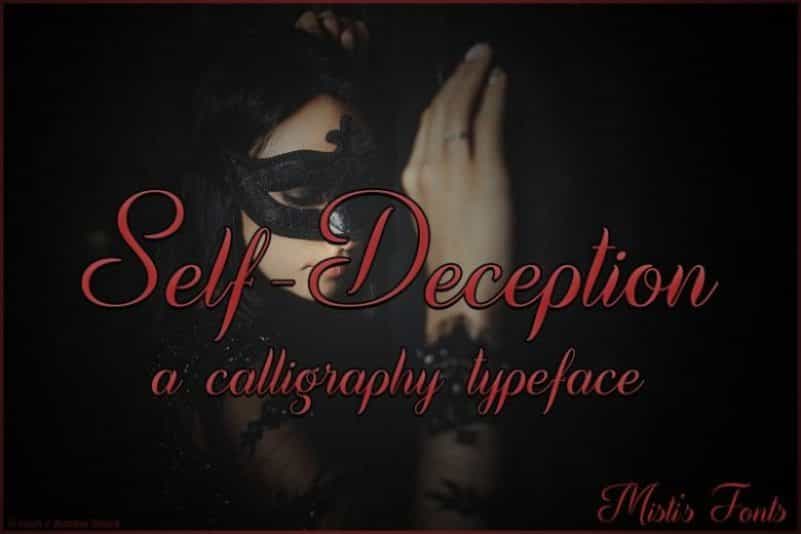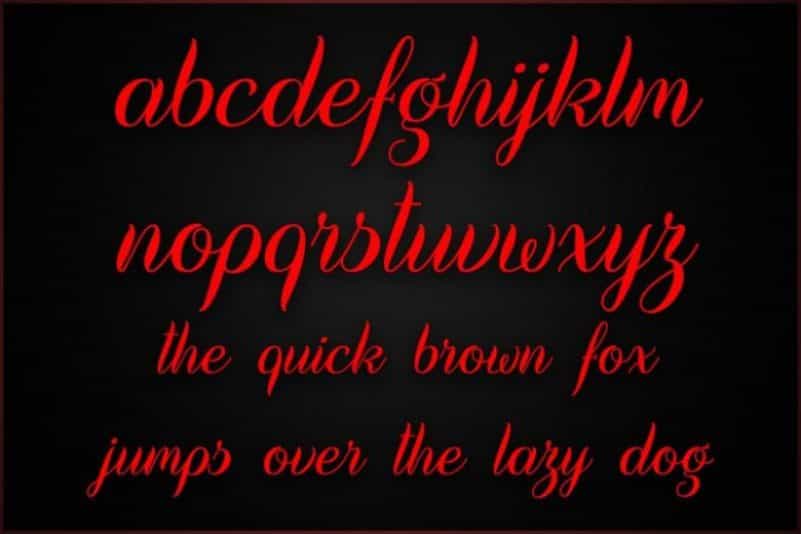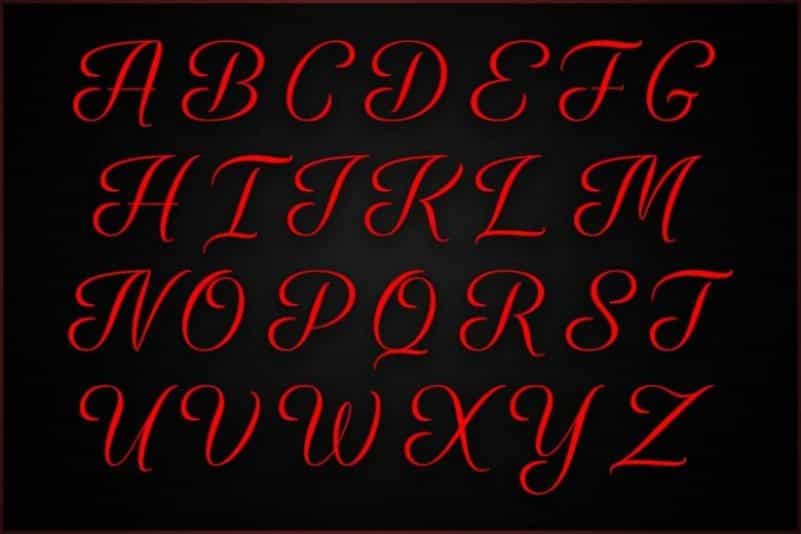
Self Deception Font is an elegant calligraphy font. This fonts inspired by dip pen calligraphy that every letter made many stylistic alternates like swash, tail and etc. Self Deception is perfect for greeting card, wedding invitation, logotype, personal branding, signature and many more.